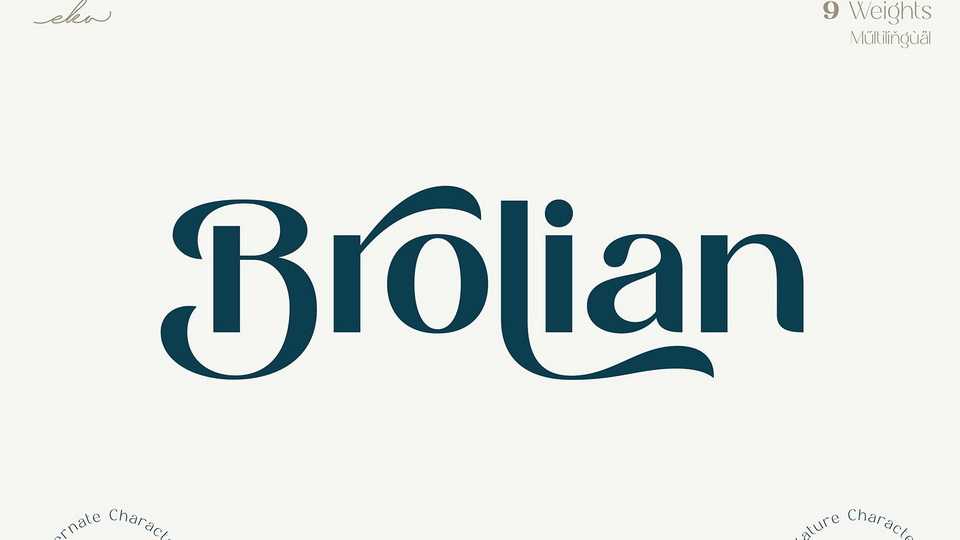
Download Brolian font, a playful and stylish typeface for any display use to give you a wide range for create a beautiful typographic design results. Brolian is a versatile font for many different projects such as logo, branding, posters, magazines, labels, merchandise, invitation, presentation, advertising, quotes and so much more.
Designer: Putu Eka Hermawan